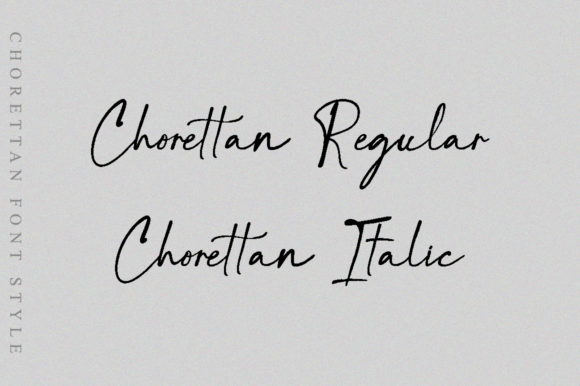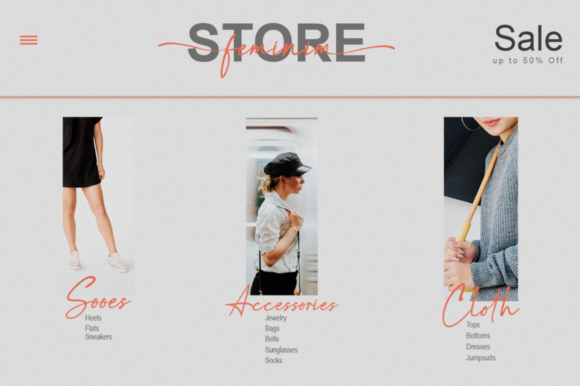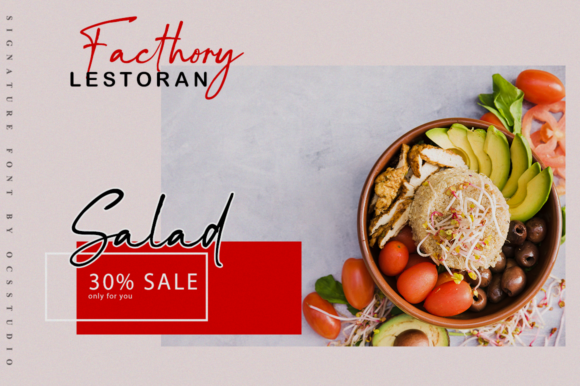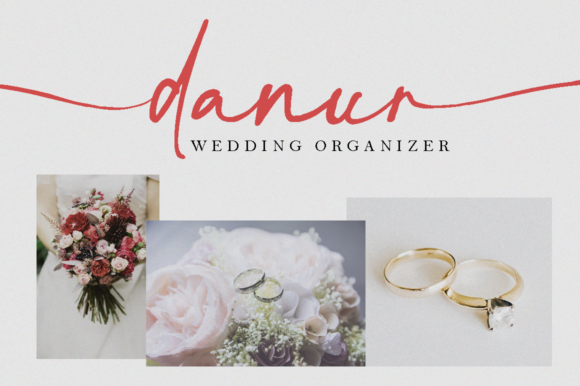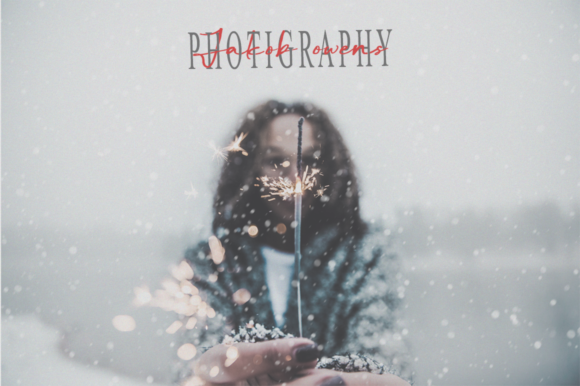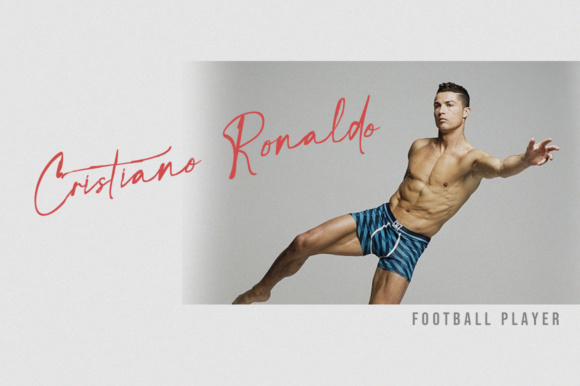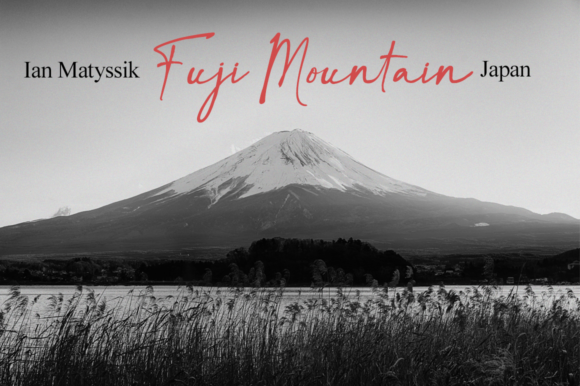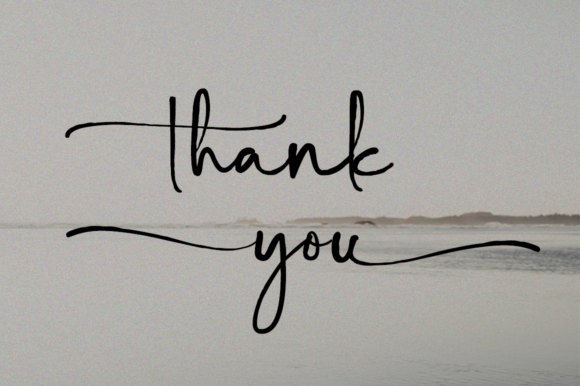
Chorettan Font
About Chorettan Font
Chorettan is a signature-style script typeface made with a natural hand stroke. Use it for any design project that requires a personalized appearance!